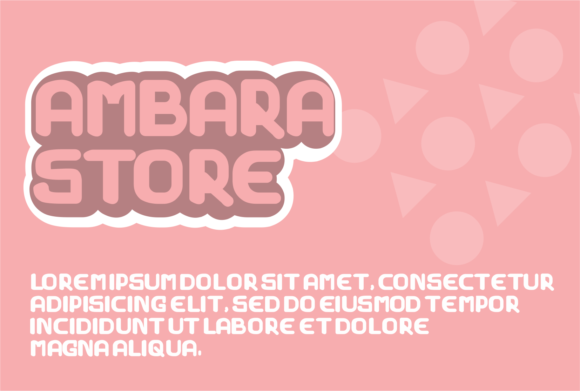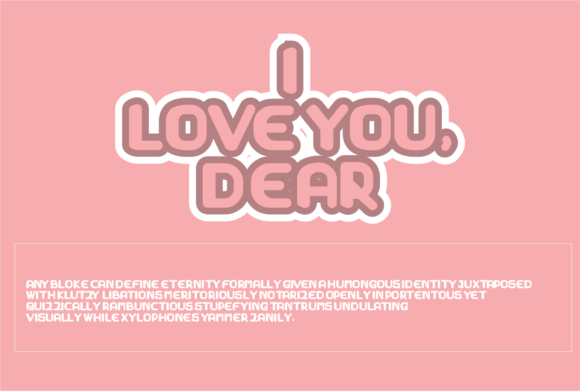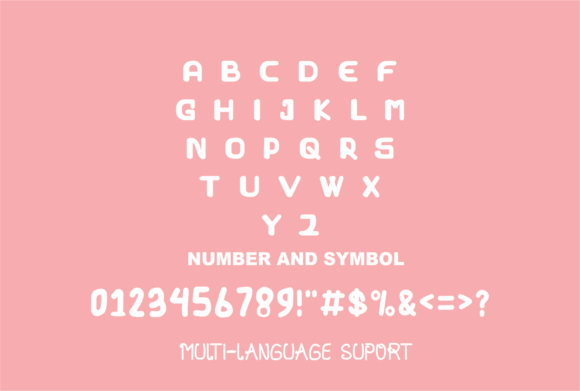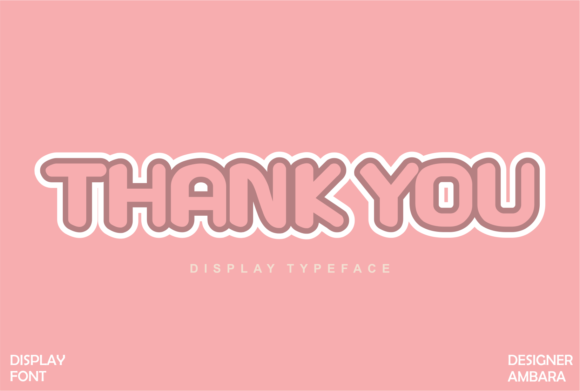
Cute Couple Font: The Perfect Addition to Your T-Shirt Love Designs
Are you a designer or crafter looking for a beautiful display font to add a touch of love and sweetness to your projects? Look no further than the Cute Couple Font! This stunning font is perfect for creating T-shirt love designs, but its versatility means it can be used on a wide range of creative projects. In this article, we’ll take a closer look at the Cute Couple Font and explore how it can elevate your designs.
What is Cute Couple Font?
Cute Couple Font is a beautiful display font designed specifically for creating eye-catching and adorable designs. Its unique and playful style makes it perfect for adding a touch of whimsy to your projects. Whether you’re creating T-shirt designs, posters, or social media graphics, this font is sure to make your designs stand out.
Key Features of Cute Couple Font
- Beautiful Display Font: Cute Couple Font is a stunning display font designed to grab attention and add a touch of love to your designs.
- Perfect for T-Shirt Love Designs: This font is specifically designed for creating T-shirt love designs, but its versatility means it can be used on a wide range of creative projects.
- Easy to Read: Despite its playful style, Cute Couple Font is easy to read, making it perfect for designs where you want to convey a message or express a sentiment.
- Highly Versatile: This font can be used on a wide range of creative projects, from T-shirt designs to posters, social media graphics, and more.
Why Choose Cute Couple Font?
So why choose Cute Couple Font for your designs? Here are just a few reasons why this font stands out:
- Unique and Playful Style: Cute Couple Font has a unique and playful style that’s sure to add a touch of whimsy to your designs.
- Perfect for Love and Valentine’s Day Designs: This font is perfect for creating love and Valentine’s Day designs, but its versatility means it can be used on a wide range of creative projects.
- Easy to Pair with Other Fonts: Cute Couple Font is easy to pair with other fonts, making it perfect for creating designs that require a combination of fonts.
How to Use Cute Couple Font
Using Cute Couple Font is easy! Here are a few tips for getting the most out of this beautiful display font:
- Use it for T-Shirt Designs: Cute Couple Font is perfect for creating T-shirt love designs, but don’t be afraid to experiment with other types of designs.
- Experiment with Different Colors: This font looks great in a range of colors, so don’t be afraid to experiment and find the perfect color scheme for your design.
- Pair it with Other Fonts: Cute Couple Font is easy to pair with other fonts, making it perfect for creating designs that require a combination of fonts.
In conclusion, Cute Couple Font is a beautiful display font that’s perfect for adding a touch of love and sweetness to your designs. Its unique and playful style makes it perfect for creating T-shirt love designs, but its versatility means it can be used on a wide range of creative projects. Whether you’re a designer or crafter, Cute Couple Font is a great addition to your font collection.